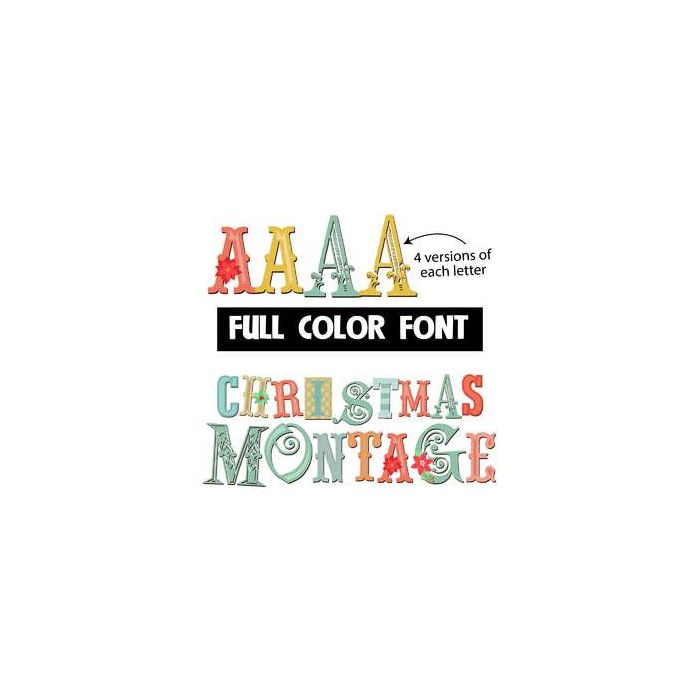
This full-color font features a collage of different lettering in a Christmas color palette. There is a second upper and lowercase you can access through your system's character map. This font works best for titles, displays, posters and more. Please note color fonts will show as black in non compatible programs. This font type is compatible with Silhouette Studio.